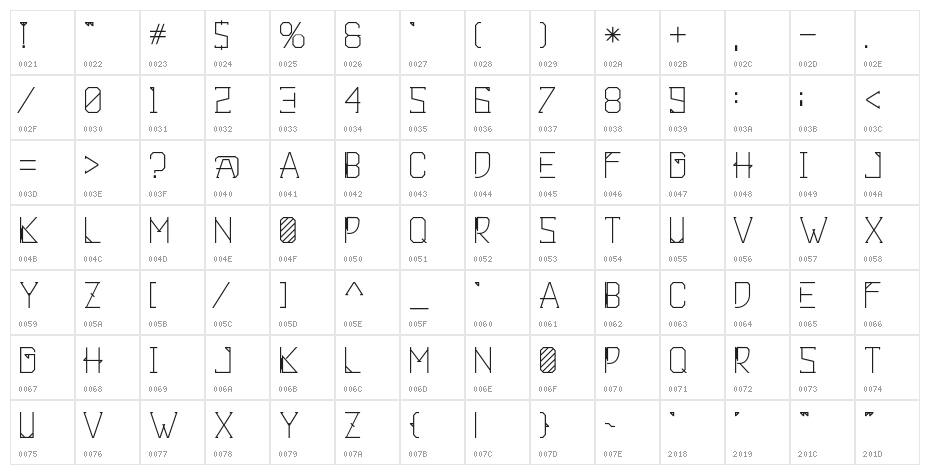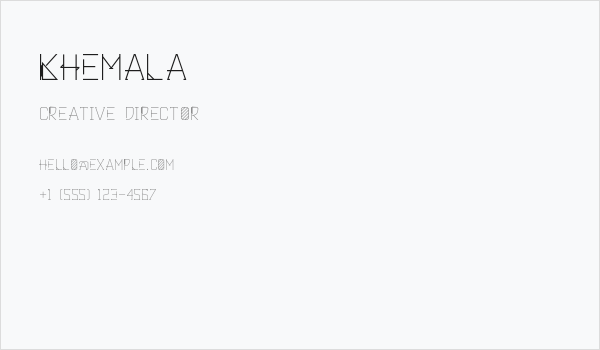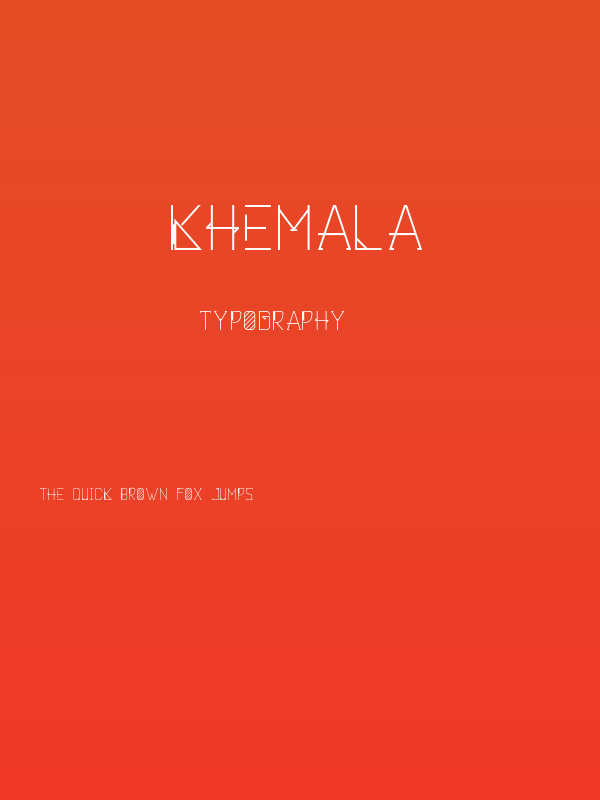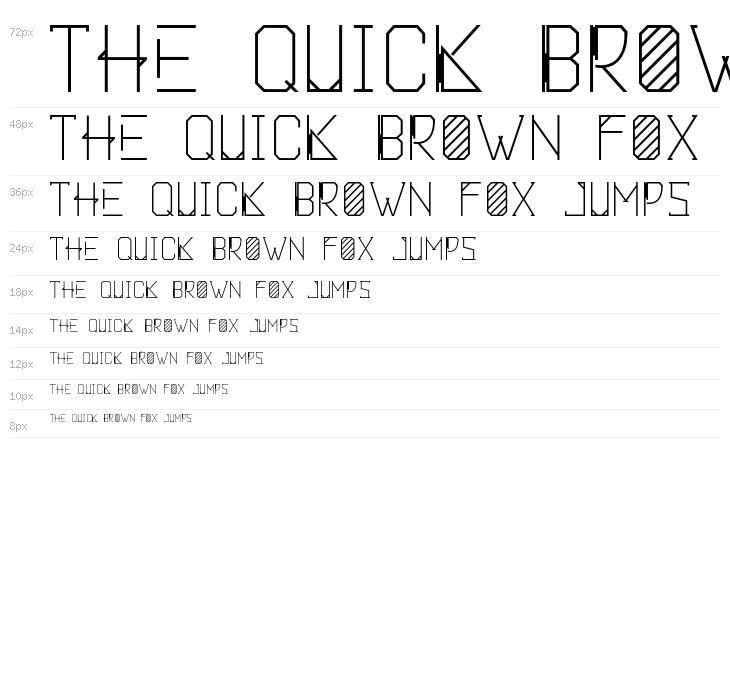
Khemala Font
Khemala Description
This font features a geometric and angular design, characterized by its distinct use of straight lines and sharp angles. Each character is constructed with a combination of solid and outlined segments, creating a unique visual effect. The uppercase letters are particularly striking, with some letters incorporating diagonal lines and cut-out sections that add to the font's modern and edgy appearance. The numerals and special characters maintain this angular style, ensuring consistency across the entire character set. The font's overall aesthetic is futuristic and technical, making it suitable for projects that require a bold and unconventional look.
| Use Case | Logos, Headlines, Posters |
| Proposed Projects | Ideal for technology branding, futuristic posters, and innovative product packaging. |